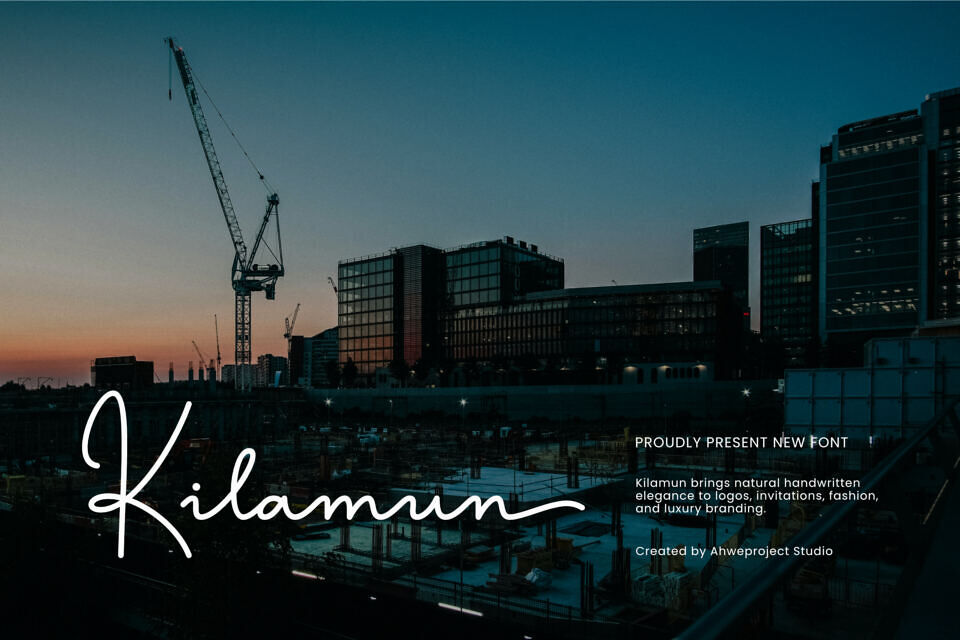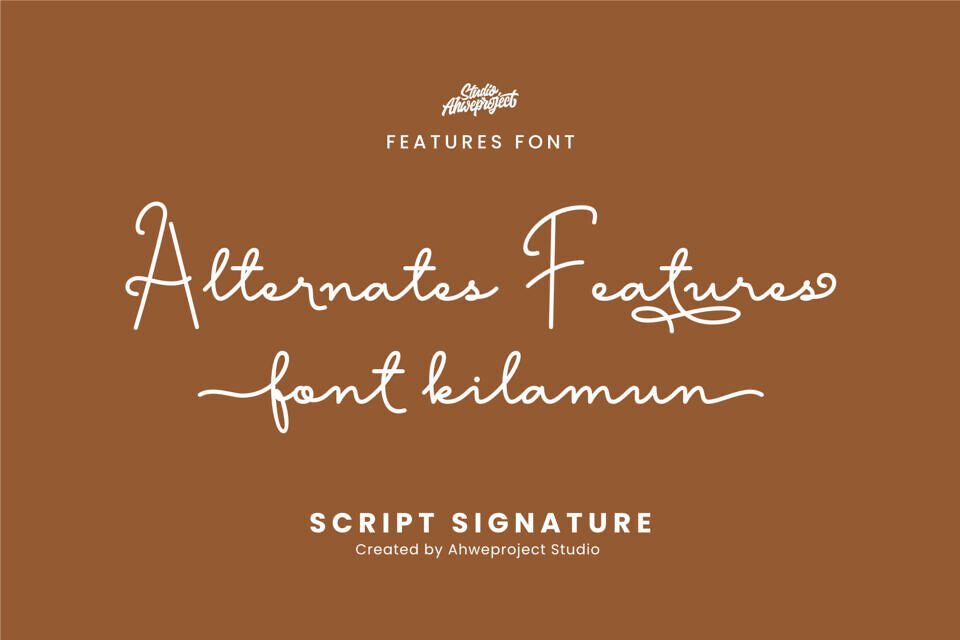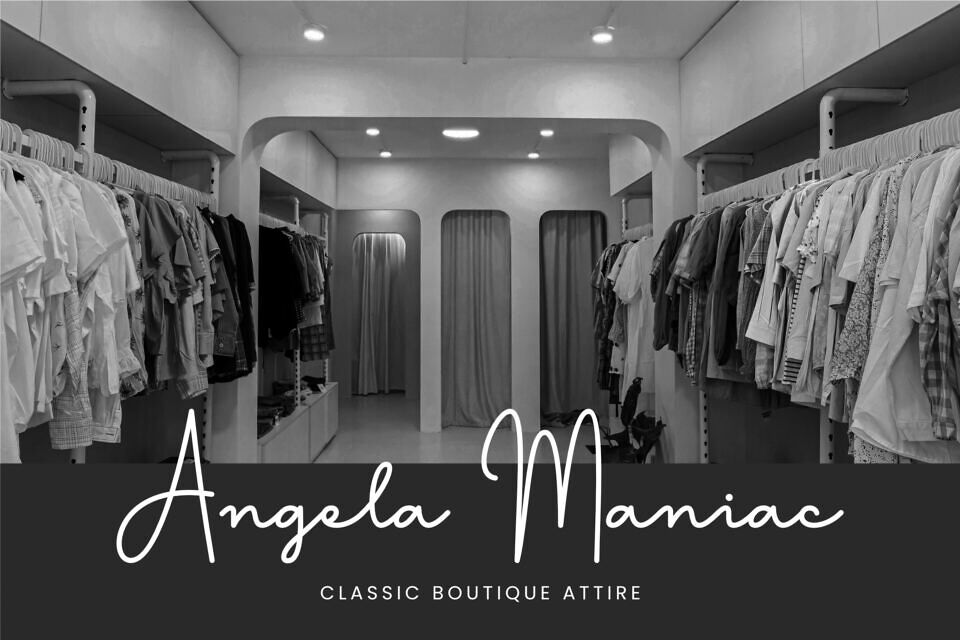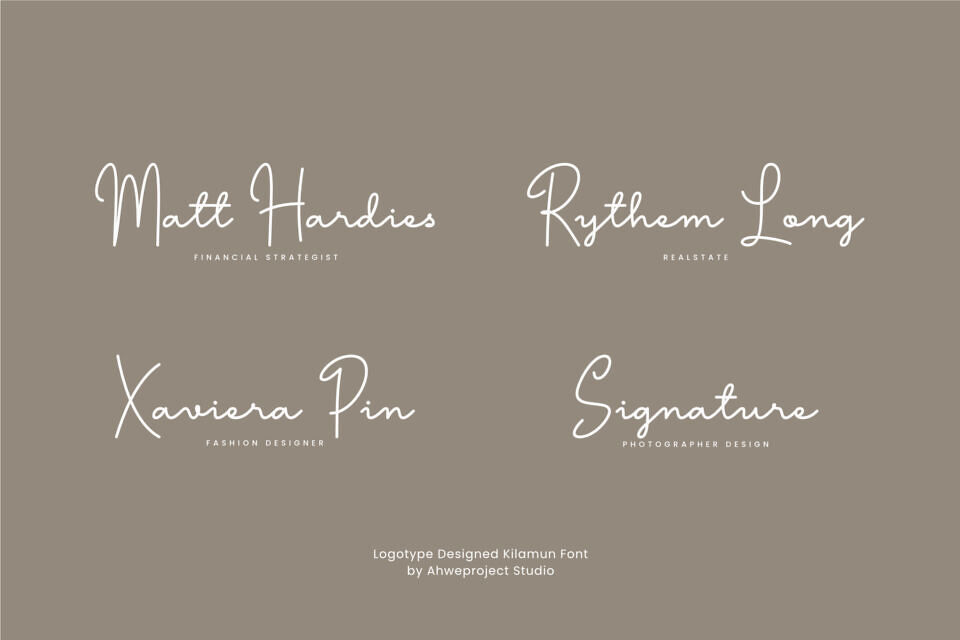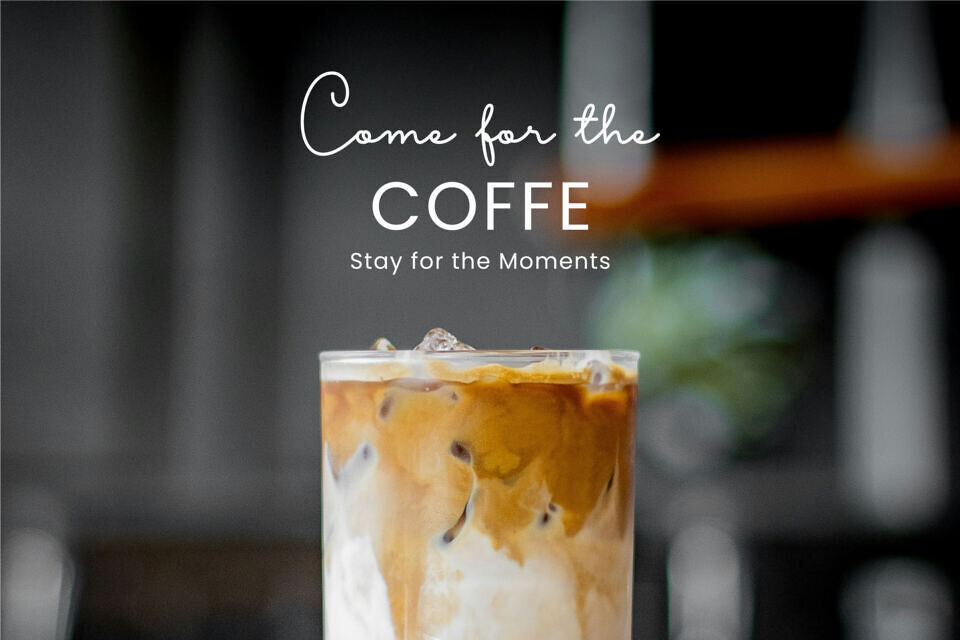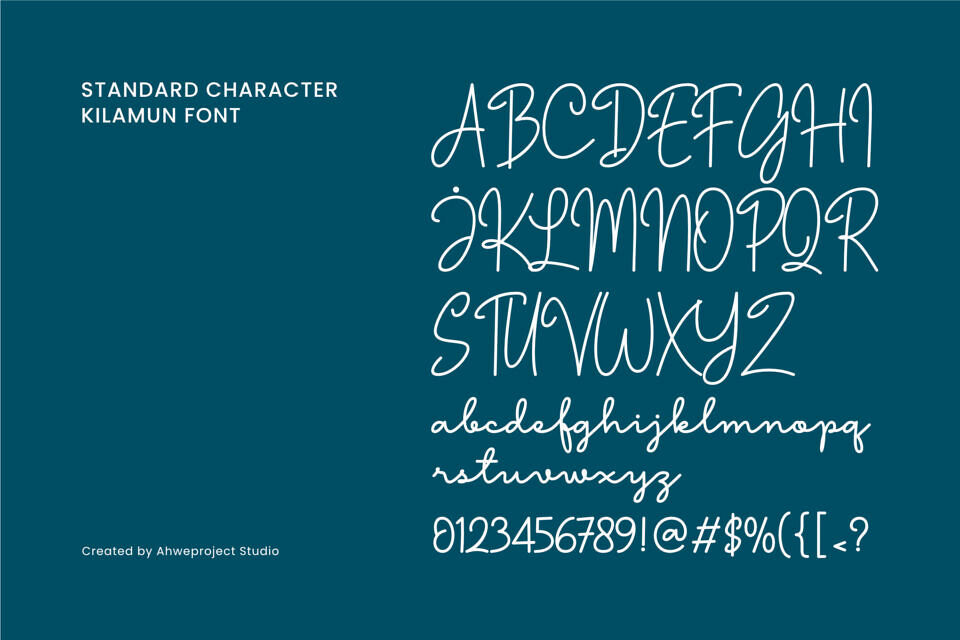
Kilamun is a graceful handwritten script font crafted to bring warmth, authenticity, and premium elegance to every design.
Featuring smooth flowing strokes and natural signature-style lettering, this font is perfect for creating eye-catching logos, luxury branding, wedding invitations, fashion labels, product packaging, social media graphics, business cards, photography watermarks, and stylish website headers.